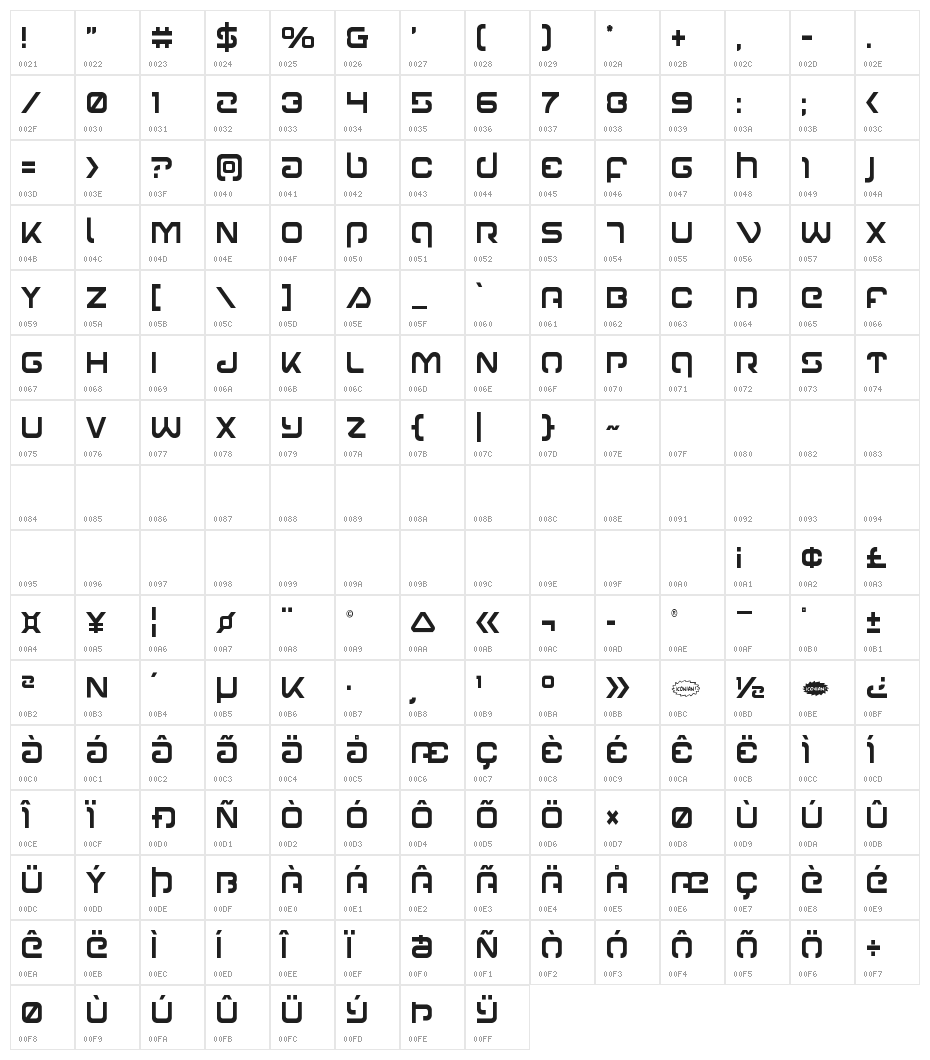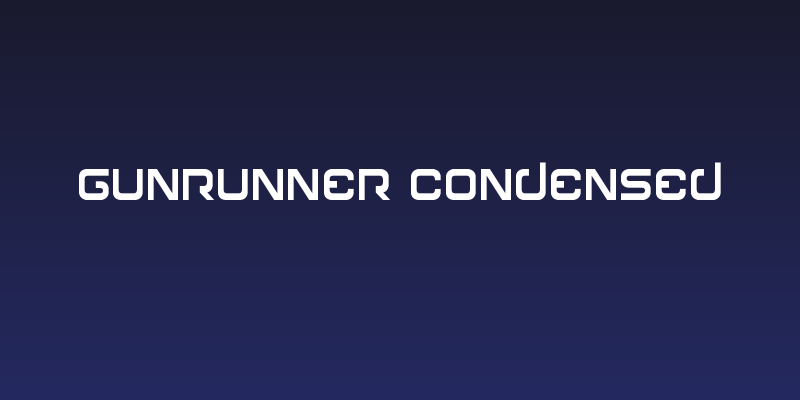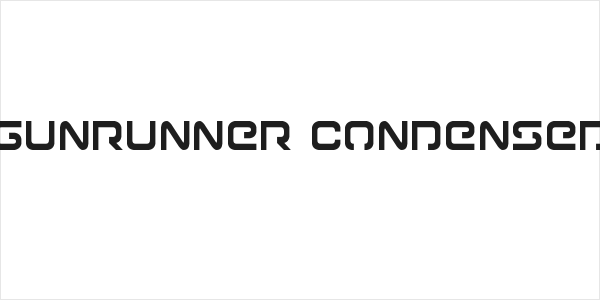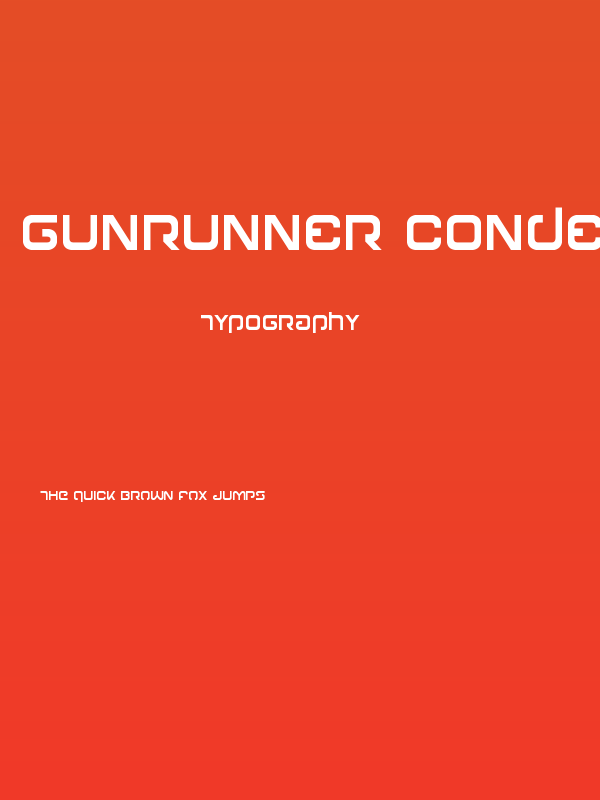
Gunrunner Condensed Font
Gunrunner Condensed Description
This font features a futuristic and geometric design with a condensed structure. The characters are bold and have a distinct, angular appearance, giving them a modern and tech-inspired look. The uppercase and lowercase letters maintain a consistent style, with sharp edges and a uniform stroke width. The numerals and special characters follow the same design principles, ensuring a cohesive appearance across all elements. This font's unique style makes it stand out, offering a bold statement in any design project.
| Proposed Projects | Ideal for technology branding, sci-fi themed designs, video game interfaces, and modern advertising. |